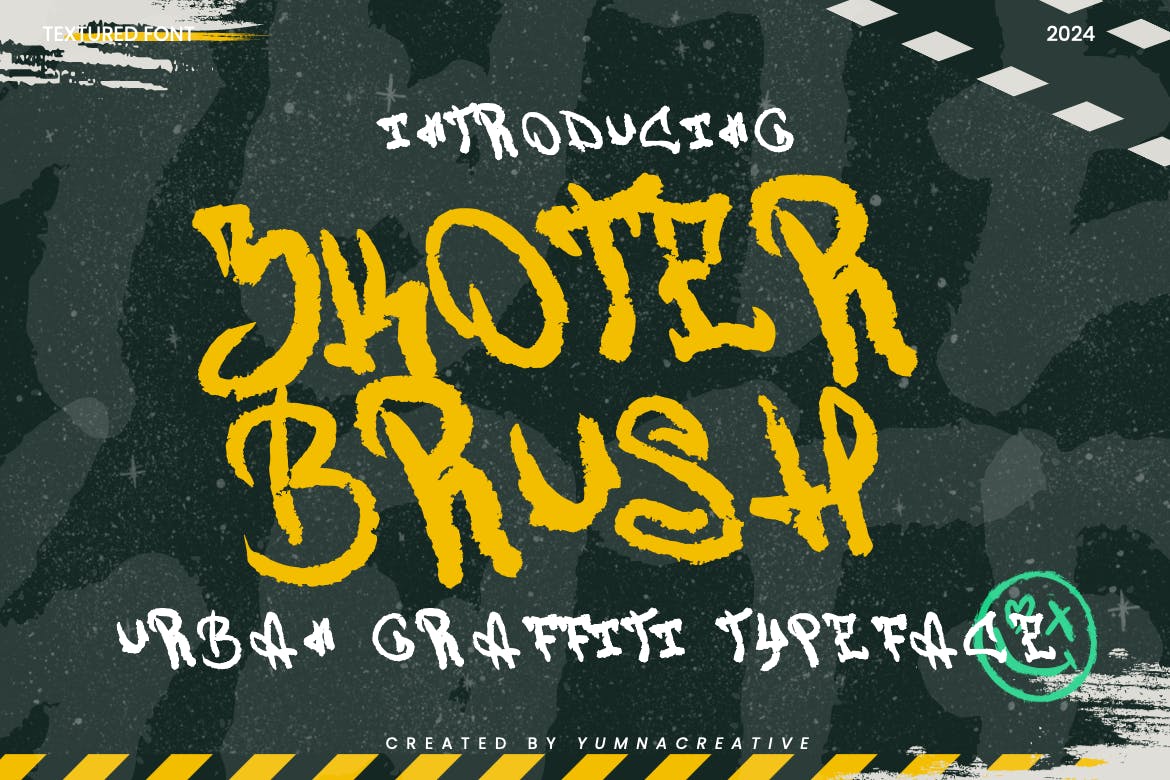
Zkoter Brush - Graffiti Brush Font
Zkoter Brush - Graffiti Brush Font explodes across urban scooter brand identities, street mobility startup graphics, underground skateboard shop signage, urban transportation campaign materials, street culture festival posters, alternative mobility advertising, urban youth brand merchandise, street sports event graphics, underground racing competitions, urban lifestyle magazines, street mobility app interfaces, and rebellious transportation marketing where street mobility culture and urban graffiti artistry create dynamic movement experiences.
This dynamic typeface generates excitement through its perfect fusion of street mobility energy and underground graffiti rebellion that creates typography embodying the freedom and urban spirit of alternative transportation culture. Zkoter Brush - Graffiti Brush Font captures the essence of street mobility with its aggressively flowing brush strokes that suggest the swift movement of urban scooters and the rebellious energy found in street transportation communities. The font's kinetic design approach incorporates elements that evoke speed, urban navigation, and the underground culture that surrounds alternative mobility and street transportation innovation. Its distinctive character reflects the independence, street wisdom, and urban mobility that define authentic street culture and alternative transportation movements.
The Zkoter Brush - Graffiti Brush Font family includes multiple street variations such as Regular, Bold, Light, Urban, and Speed versions, each maintaining the font's characteristic street mobility energy while offering different levels of dynamic impact. The collection features street-inspired brush textures, mobility-focused effects, and urban styling that enhance its street credibility. Additional elements include wheel symbols, urban ornaments, street decorative borders, and mobility flourishes that reinforce the font's connection to street transportation culture and urban mobility innovation.
Whether you're designing urban mobility campaigns, creating street transportation branding, developing alternative mobility materials, or crafting street culture communications, Zkoter Brush - Graffiti Brush Font delivers unmatched street authenticity. Its ability to convey urban mobility energy, street culture rebellion, and alternative transportation innovation makes it invaluable for mobility entrepreneurs seeking typography that genuinely captures the spirit of street transportation culture. The font's dynamic presence ensures your designs will communicate the urban freedom and street mobility innovation that define exceptional alternative transportation communications and underground mobility experiences.